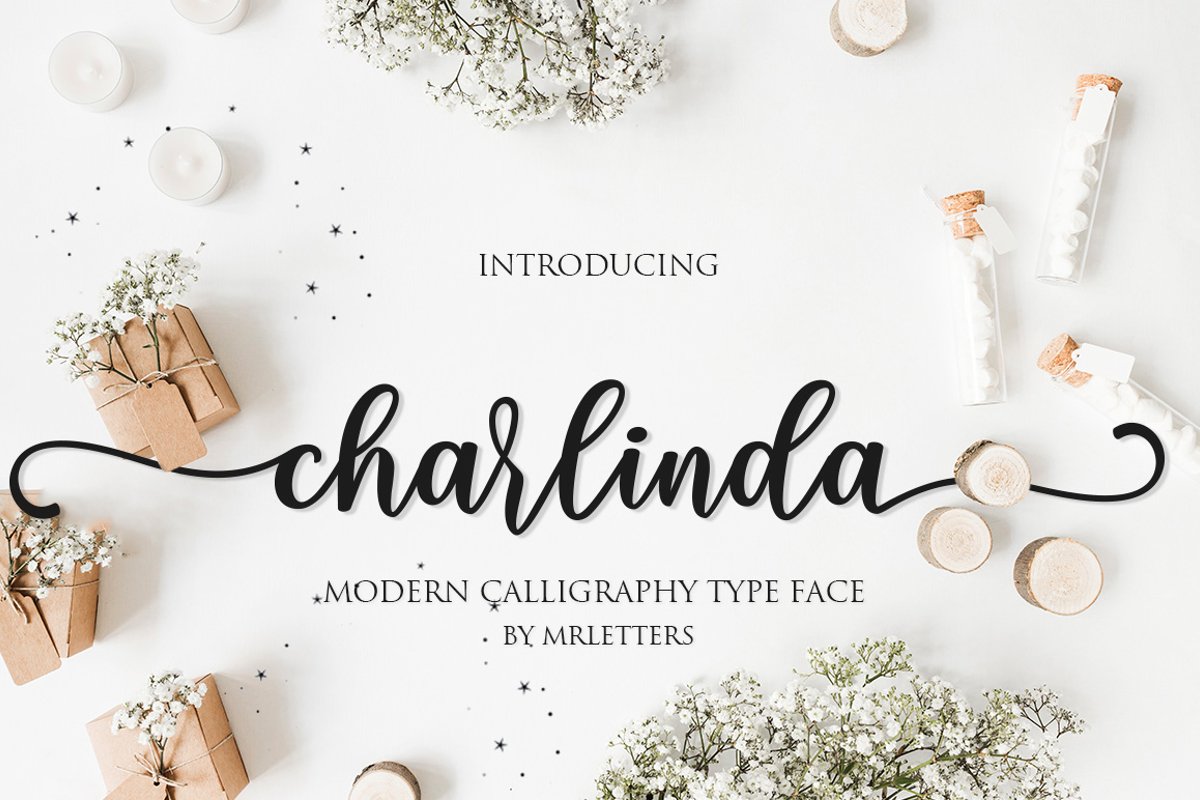
charlinda Script
charlinda Script  is perfect for branding, wedding invitations, magazines, mugs, business cards, quotes, posters, and many more that you can use on your big project will be very beautiful.
charlinda Script is equipped with the OpenType feature and has many glyphs. and of course having a lot of glyphs will be able to choose letters to your liking, lots of variations and choices for each letter, so you can customize your design choices and also support other languages.